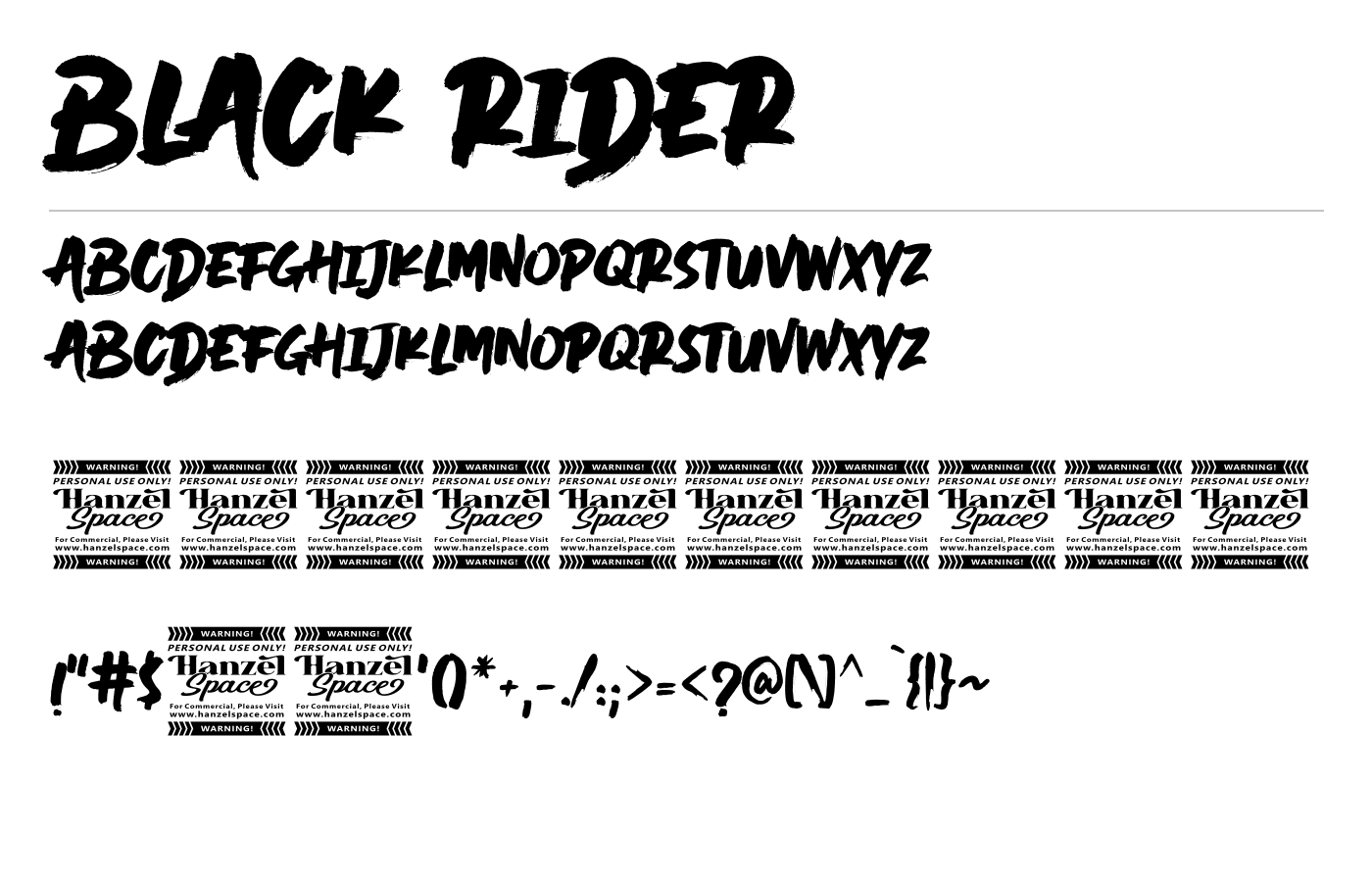
Black Rider is a bold, brush-style display font with a rough, hand-painted texture that exudes energy and a rebellious spirit. Its uppercase letters feature strong, dynamic strokes with a casual, artistic feel, making it perfect for eye-catching headlines, logos, and creative projects that want to convey a sense of adventure or raw authenticity. This font works well in designs seeking a bold, expressive, and unconventional vibe.
Black Rider Font
About Black Rider Font